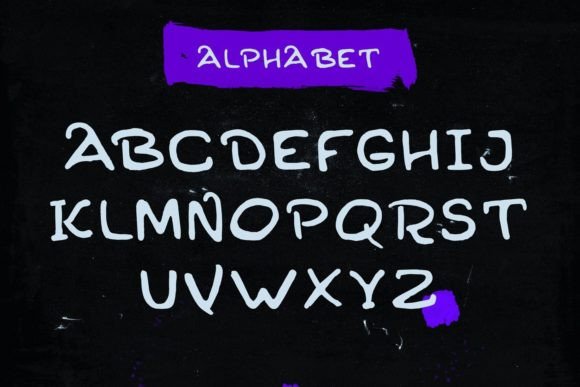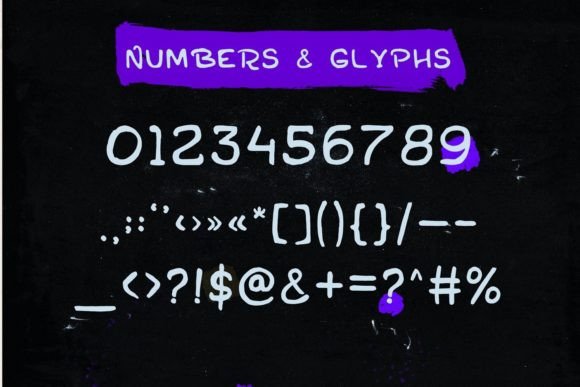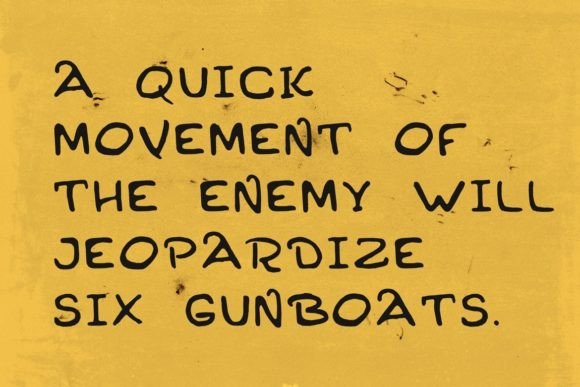
About Quickdraw Font
“Quickdraw” is a font that lives up to its nameāit embodies the essence of being quickly hand-drawn, creating a spontaneous and energetic vibe. This handwritten font captures the rawness of hastily created designs, making it a perfect choice for various applications such as branding, advertising, posters, and more.
The font’s swift strokes and casual appearance make it ideal for projects where a sense of immediacy and informality is desired. Its spontaneity adds a touch of authenticity to your designs, making them feel genuine and relatable to your audience.
One of the standout features of “Quickdraw” is its PUA (Private Use Area) encoding. This encoding system allows easy access to all the unique glyphs and swashes that the font offers. This feature empowers designers to experiment and customize their designs effortlessly, creating truly unique and personalized typographic elements for their projects.
Whether you’re working on a branding campaign that requires a contemporary and edgy feel or creating eye-catching posters that need to grab attention quickly, “Quickdraw” provides the perfect visual language. Its dynamic and hastily drawn appearance adds a sense of urgency and creativity to your designs, making them visually stimulating and engaging.
Embrace the spontaneity and energy of “Quickdraw” in your creative projects. Utilize its swift handwritten style to infuse your designs with a sense of vitality and movement. With its PUA encoding, you have the creative freedom to explore a wide range of possibilities, ensuring that your designs are as unique and compelling as your ideas. Let “Quickdraw” be the tool that helps you create visually impactful and authentic designs that leave a lasting impression.